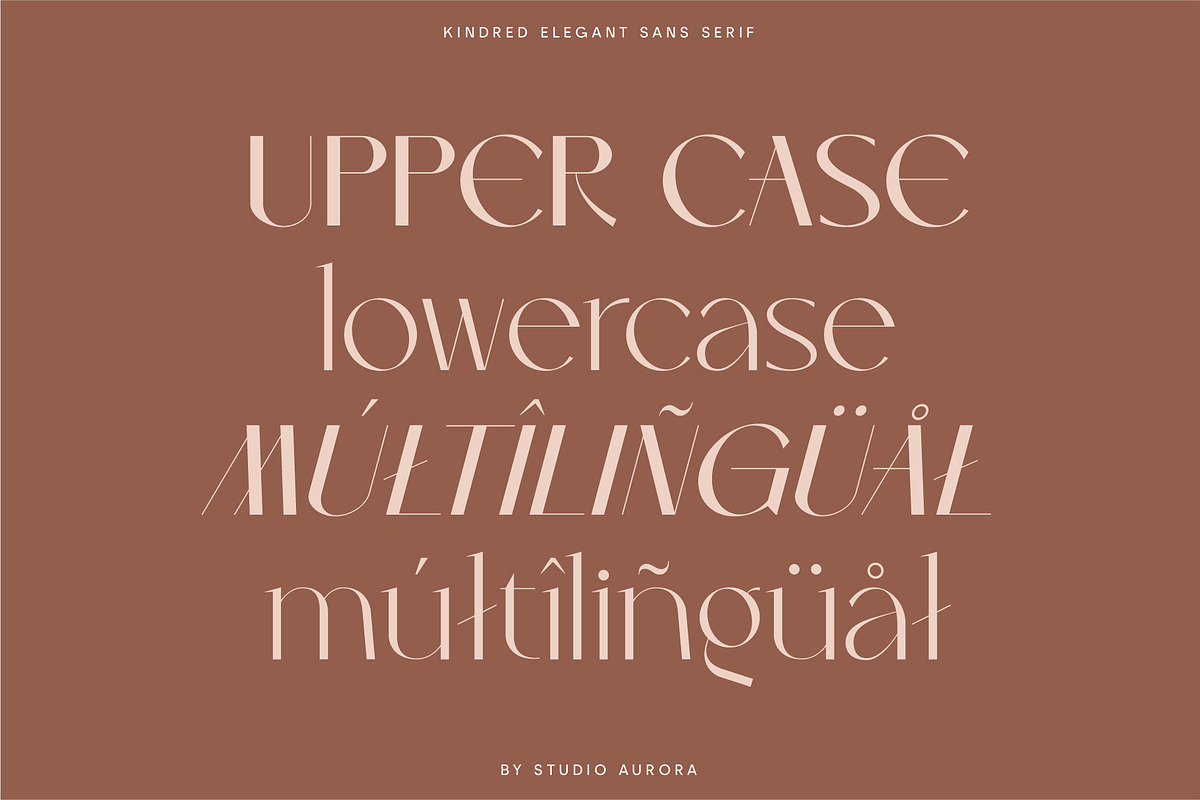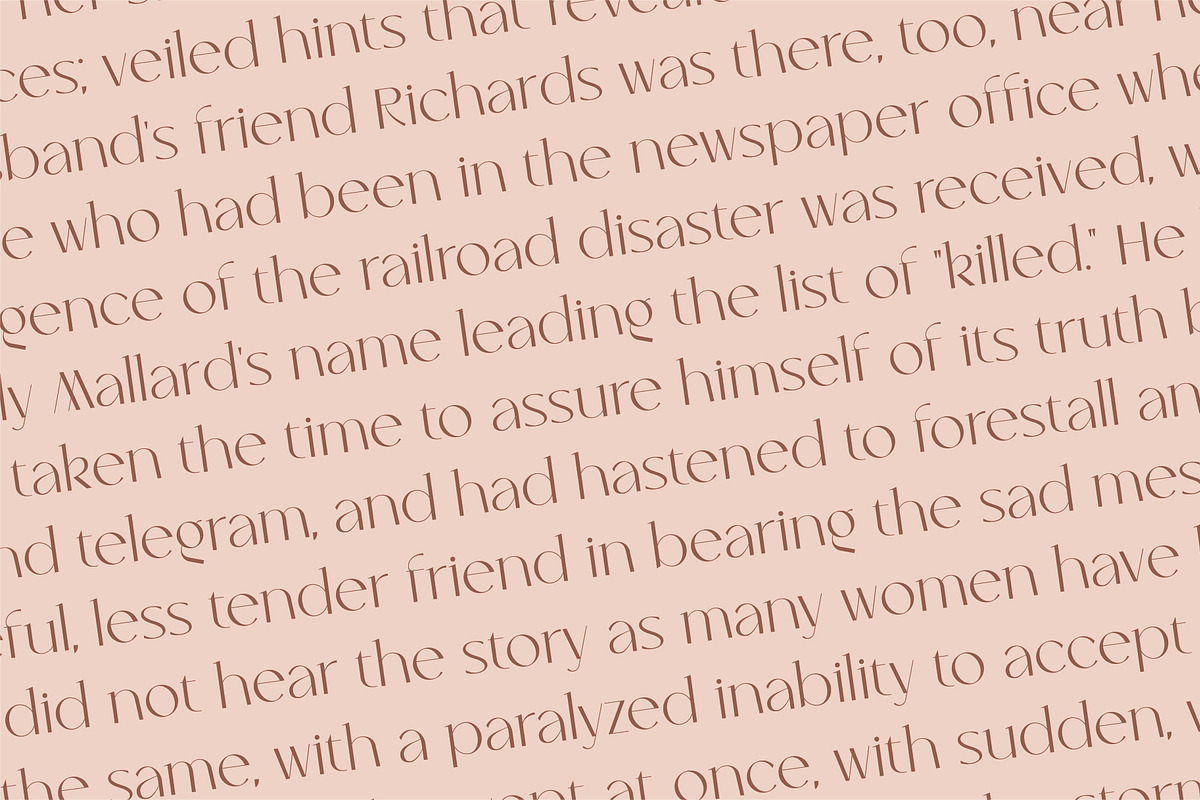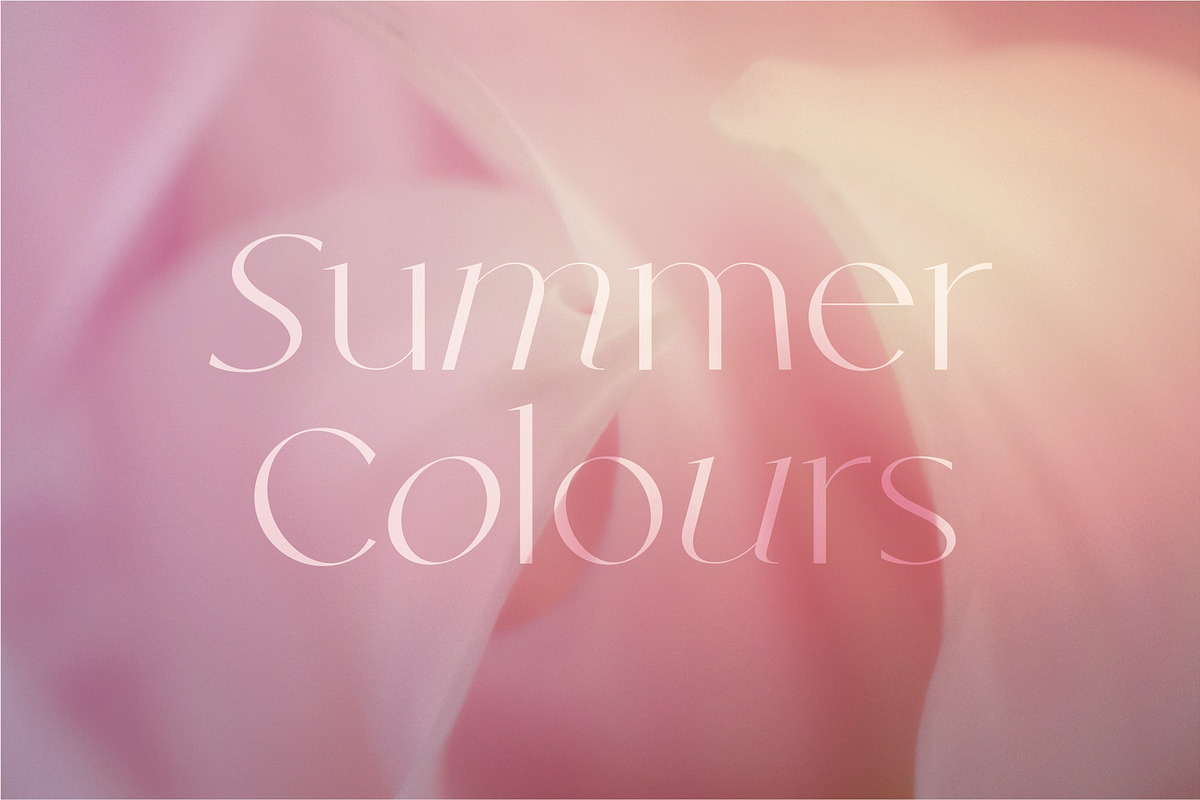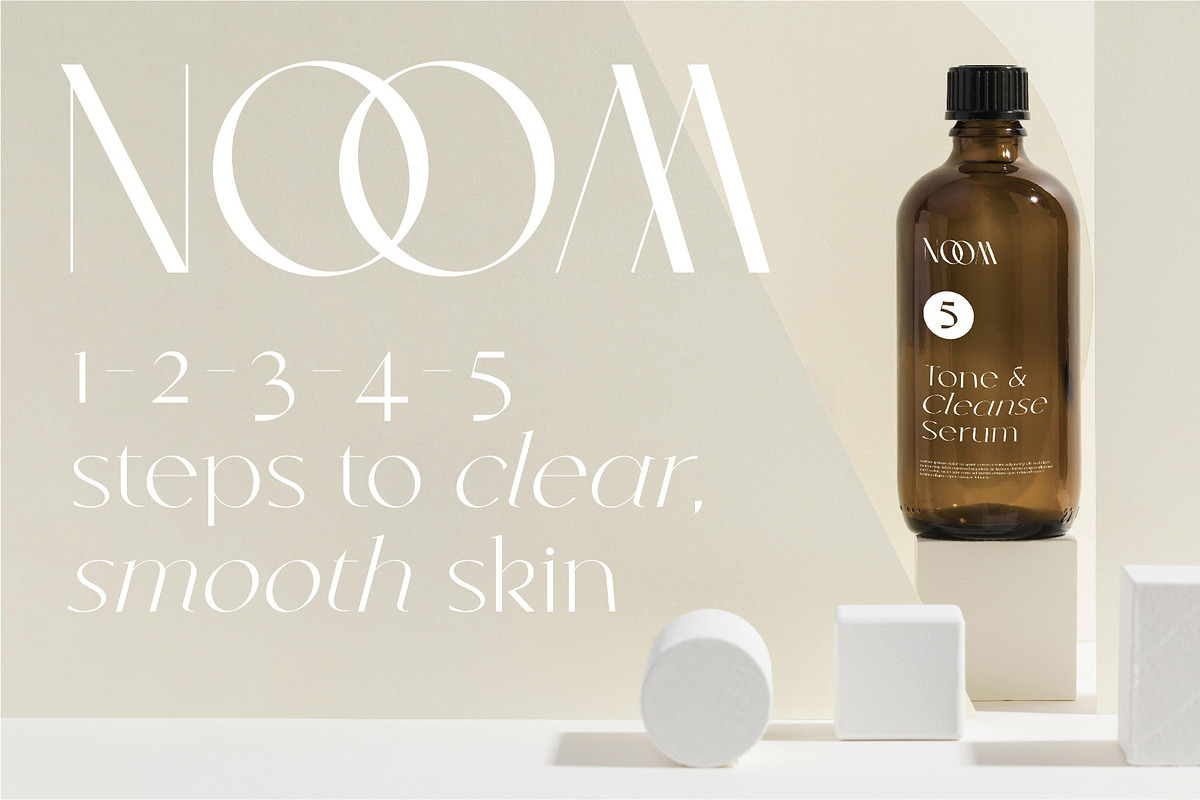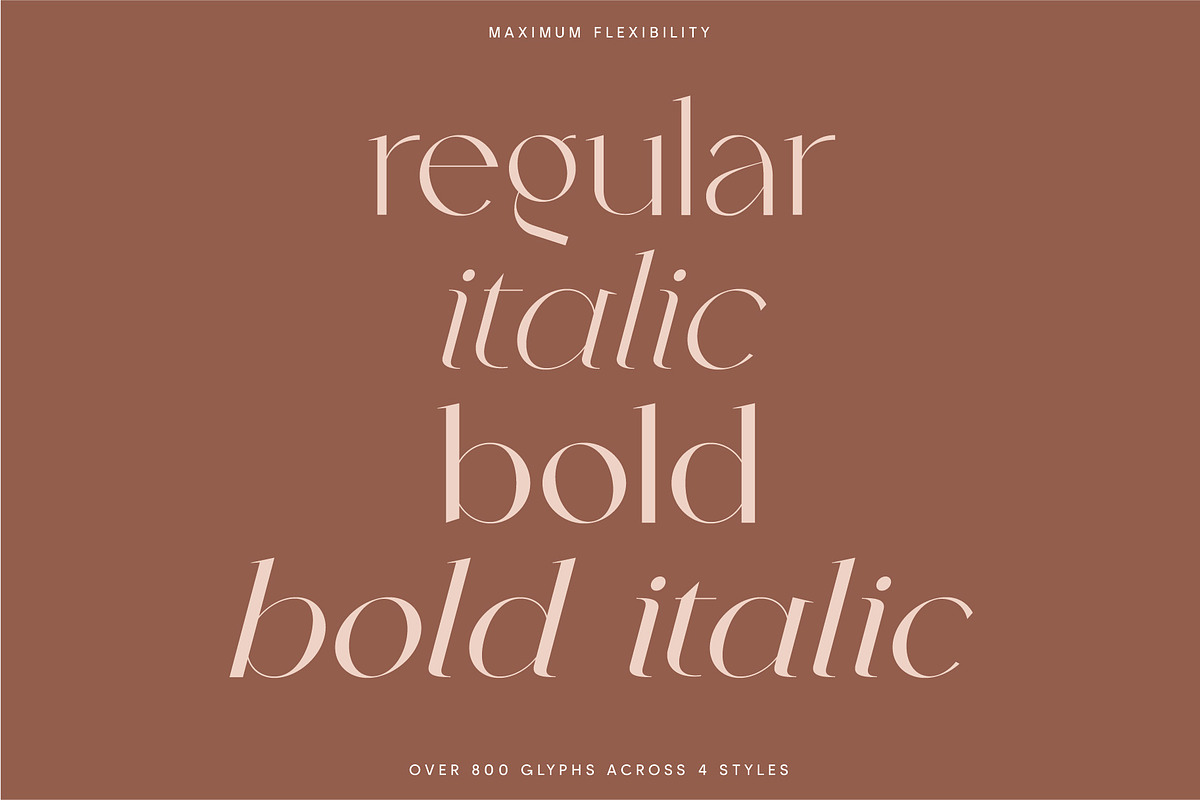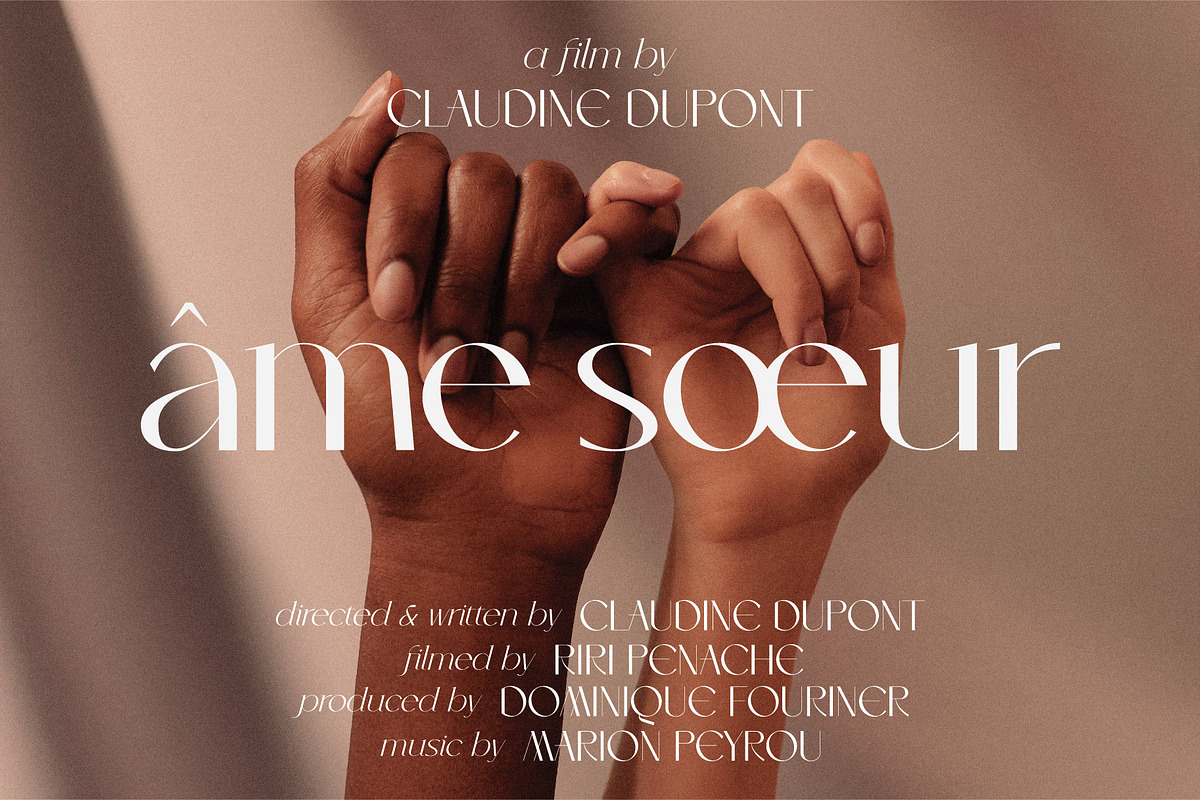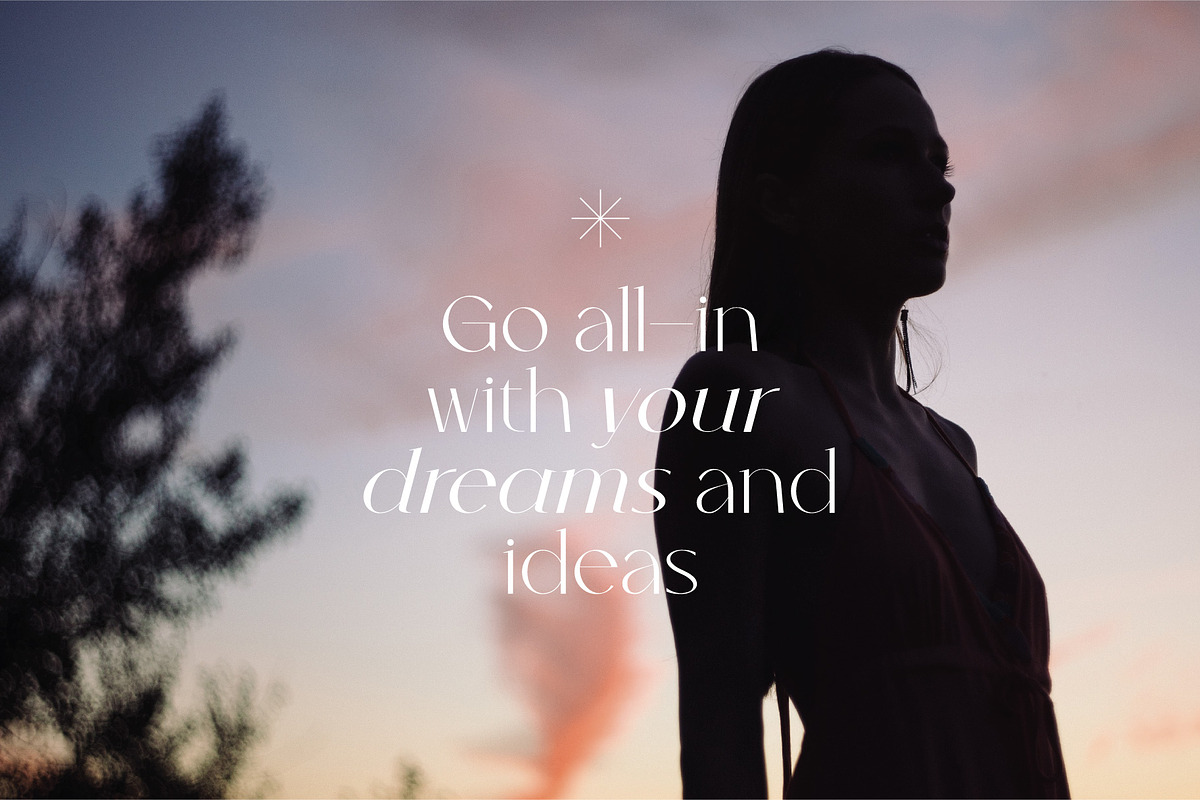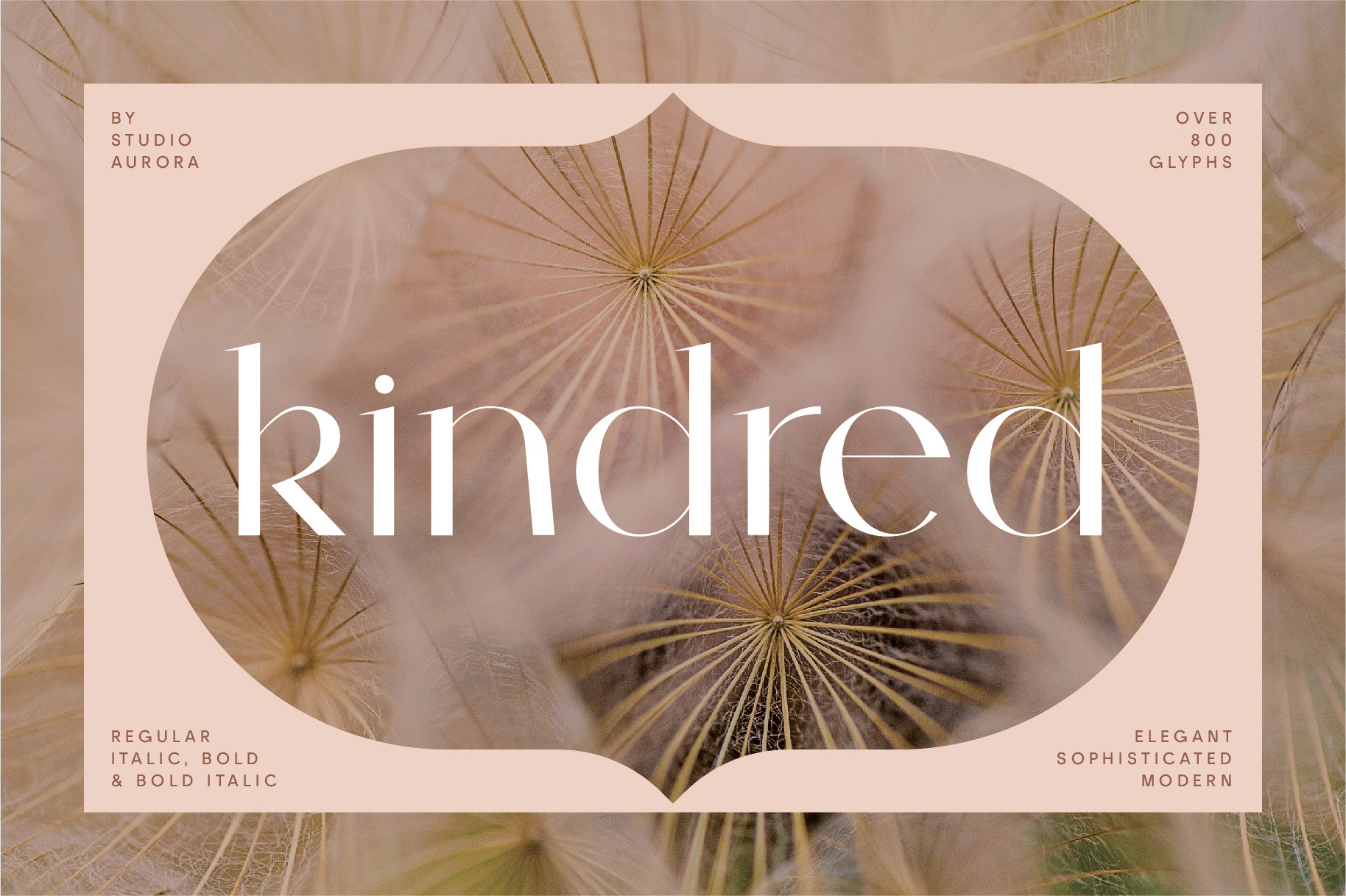
Kindred - Elegant and chic font
Kindred is a 4 style (regular, italic, bold & bold italic) contemporary and chic typeface, perfect for projects that require an elegant sophistication paired with maximum flexibility.
- 4 styles including: Regular, Italic, Bold and Bold Italic
- Uppercase and lowercase glyphs
This font works equally well for body copy or as a display type for headings and titles that we recommend using in the following types of work; magazines (titles and layouts), logos and branding, invitations, quotes, blog headers, posters, and advertising.